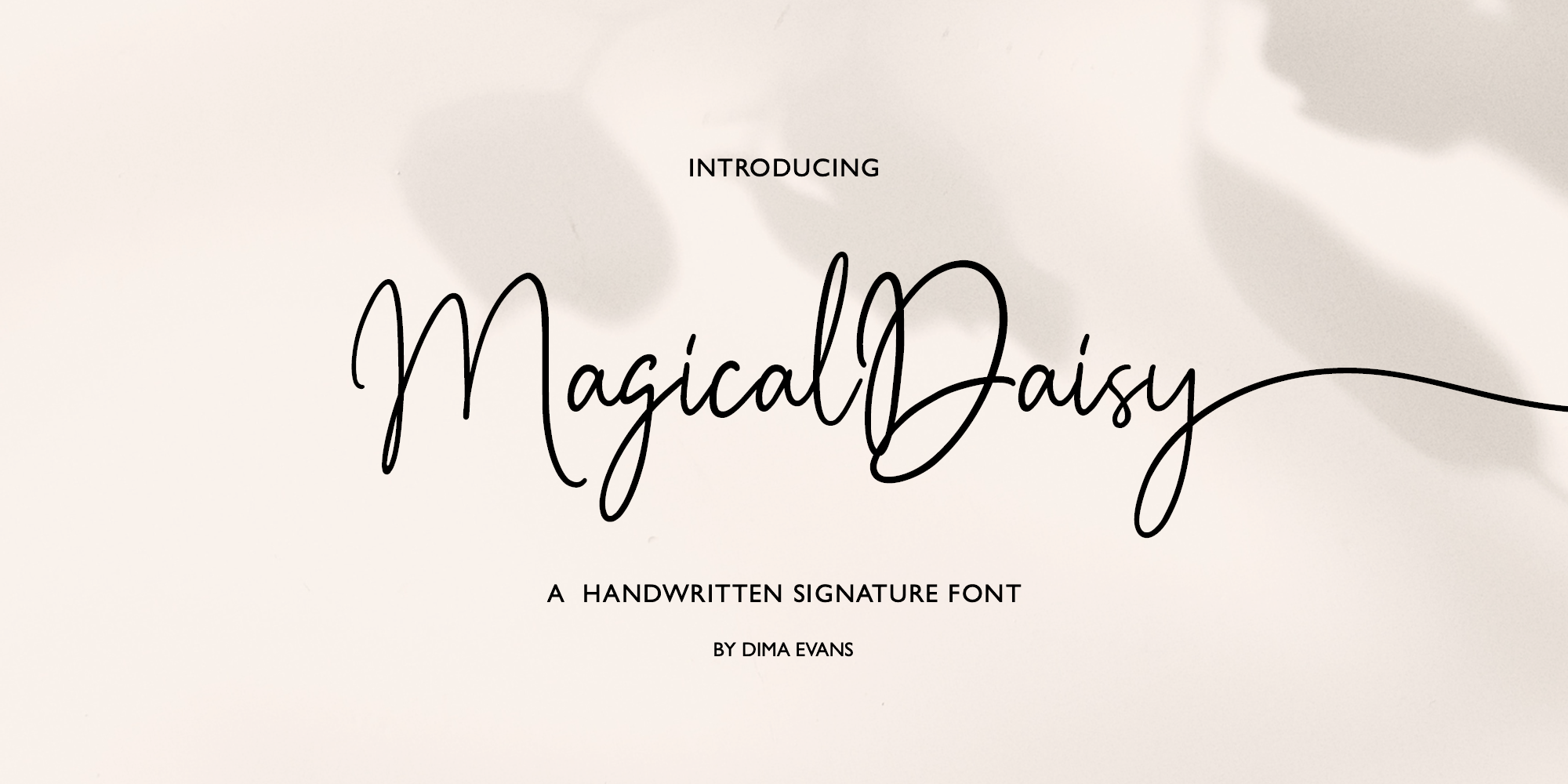
Magical Daisy Font is perfect for enchanted garden parties, fairy tale children's books, whimsical flower shop branding, magical beauty product labels, dreamy spring festival promotions, enchanting wedding stationery, mystical botanical campaigns, and charming fantasy storytelling projects.
This font is exciting because it captures the enchanting wonder of magical blooms with whimsical charm and fairy tale sophistication. Magical Daisy Font features delicate letterforms with petal-inspired flourishes that evoke the mystical beauty of enchanted gardens and magical flower kingdoms, making it ideal for projects that require authentic fairy tale character and botanical magic.
The Magical Daisy Font family includes regular, light, bold, and whimsical variants, along with magical alternates and floral ligatures that enhance its enchanting character. Each weight maintains the font's mystical aesthetic while providing different levels of magical expression for various fairy tale and botanical design applications.
Whether you're developing enchanting botanical brands, creating compelling fairy tale materials, or designing magical garden campaigns, Magical Daisy Font Free Download delivers exceptional wonder and fairy tale appeal. Its distinctive magical style makes it an excellent choice for designers seeking to add genuine enchantment and whimsical sophistication to their projects. The font's versatility extends from children's book illustrations to magical garden event signage, ensuring consistent performance across all enchanted applications. With its whimsically crafted letterforms and fairy tale proportions, this typeface provides professional results that inspire wonder and establish magical brand presence with its unmistakable enchanted character and delightful botanical elegance.